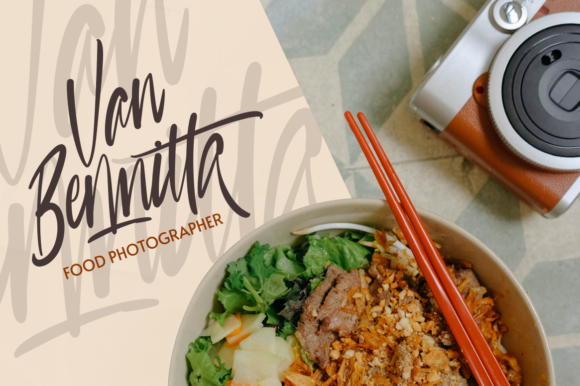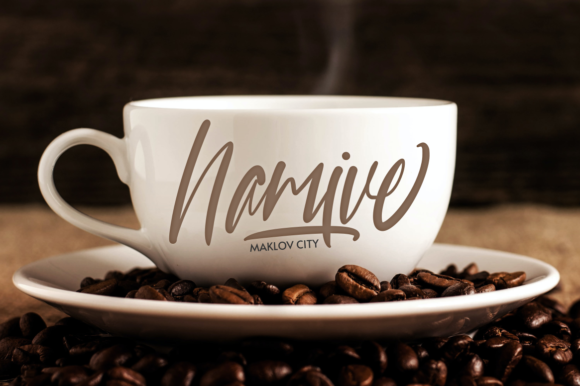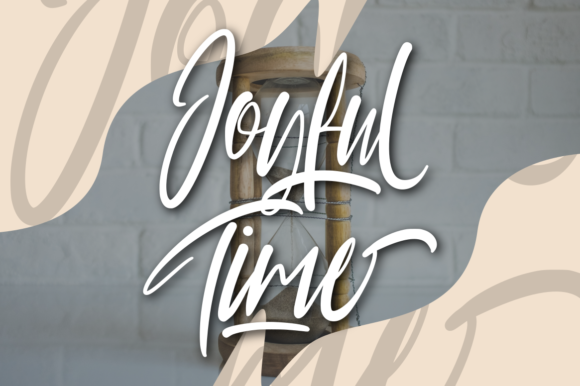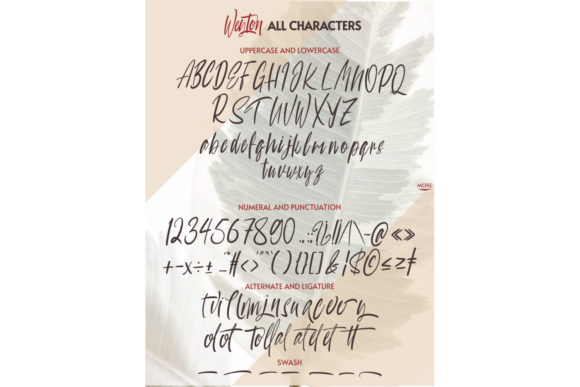
About Weyton Font
Weyton is a fantastic tall and fun script font that adds a touch of quirkiness to your designs. With its unique style and versatility, this font looks incredibly adept in a wide variety of contexts, allowing you to explore different creative possibilities.
The tall letterforms of Weyton create a visually striking appearance that grabs attention and adds a dynamic flair to your designs. Whether you’re designing logos, posters, invitations, or any other project, this font stands out and leaves a lasting impression.
One of the great features of Weyton is its PUA encoding. This means that you can easily access all of the glyphs and swashes that come with the font. This gives you the freedom to customize your designs and add decorative elements effortlessly, adding a personalized touch and enhancing the visual impact.
With Weyton, you can let your creativity flow and experiment with various design options. Its versatility allows it to adapt to different themes and aesthetics, making it a valuable asset in your design toolbox.
Embrace the tall and fun nature of Weyton and let it bring a touch of quirkiness and versatility to your designs. Unleash your creativity and explore the endless possibilities this font has to offer.